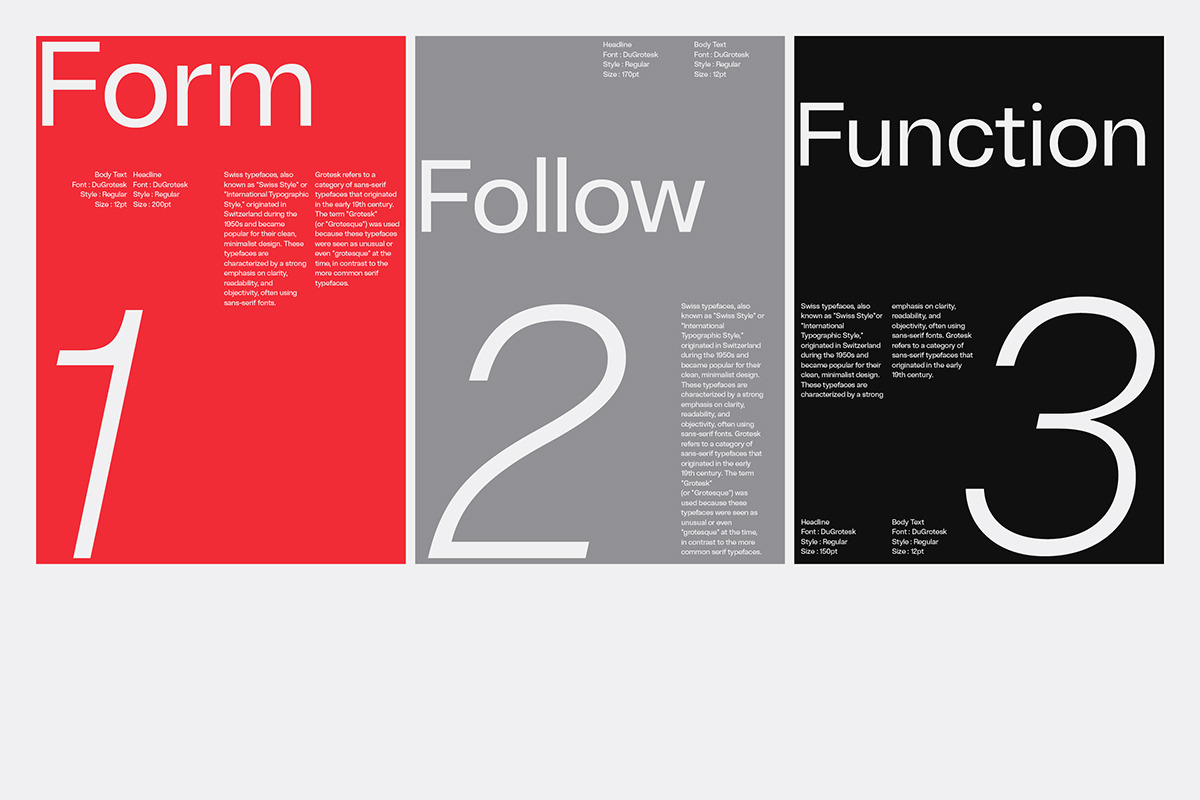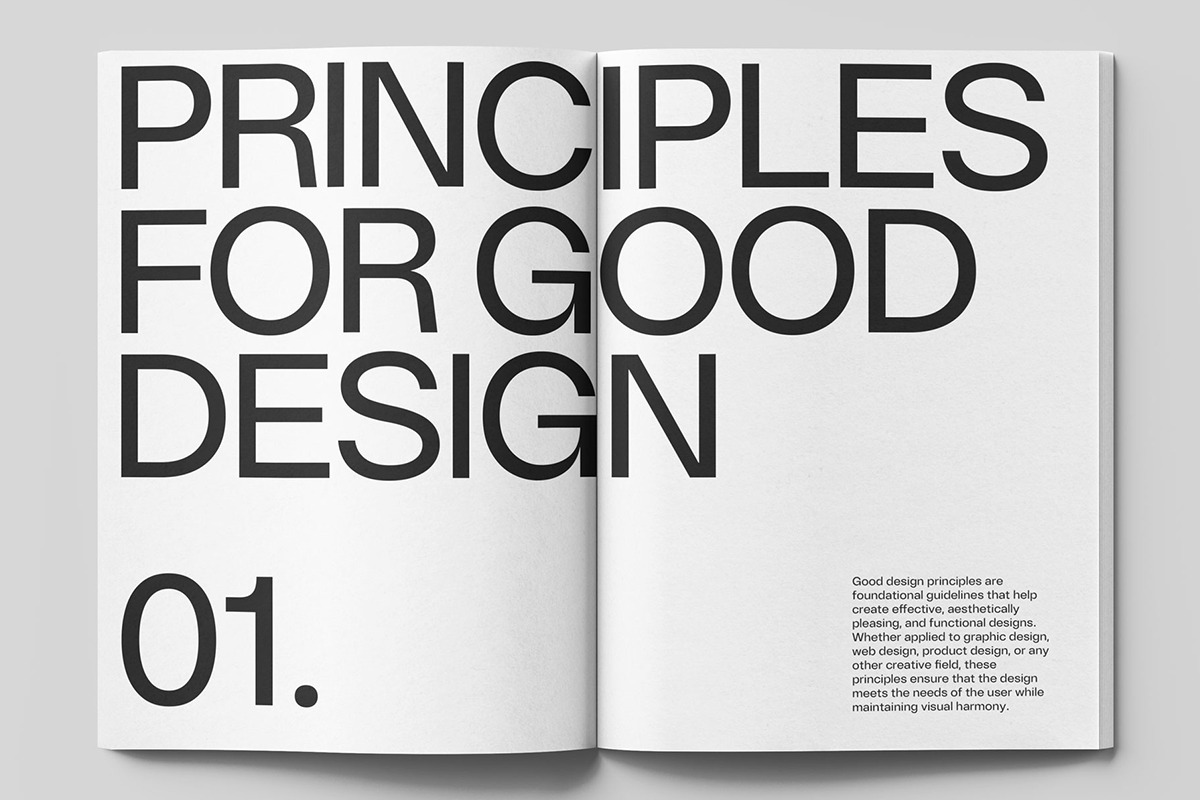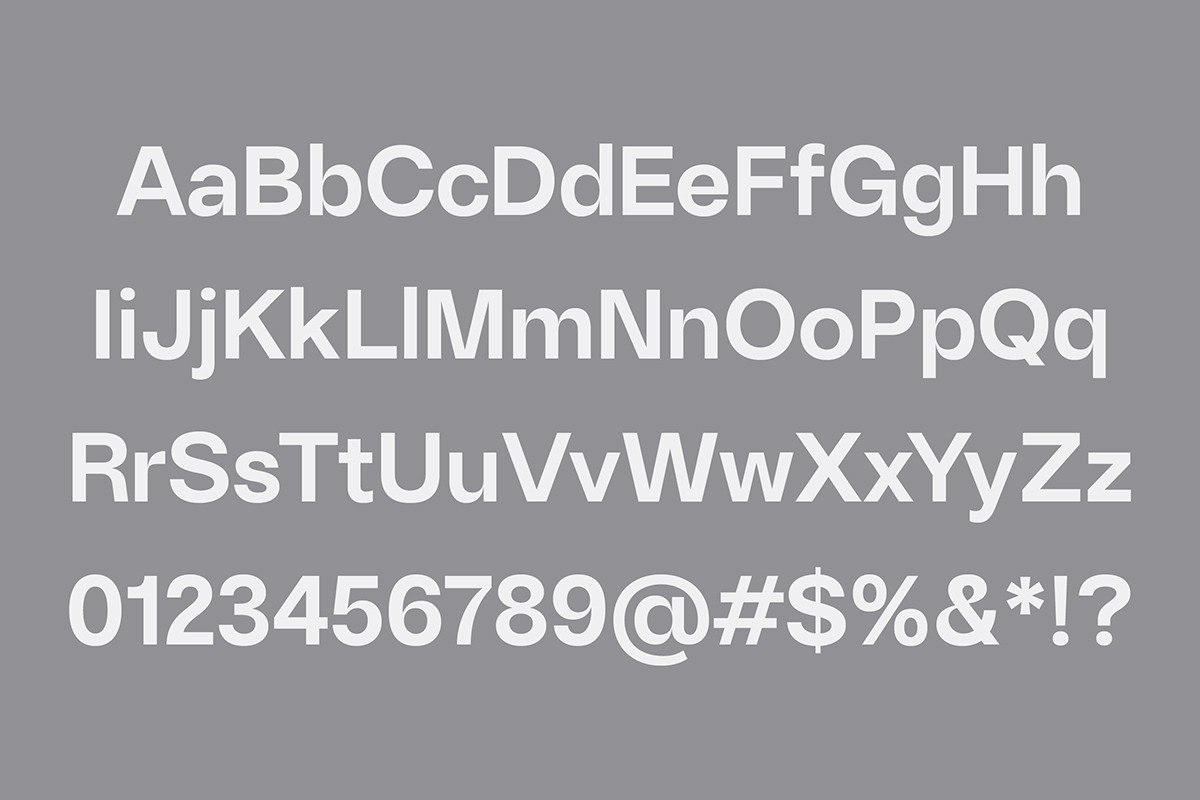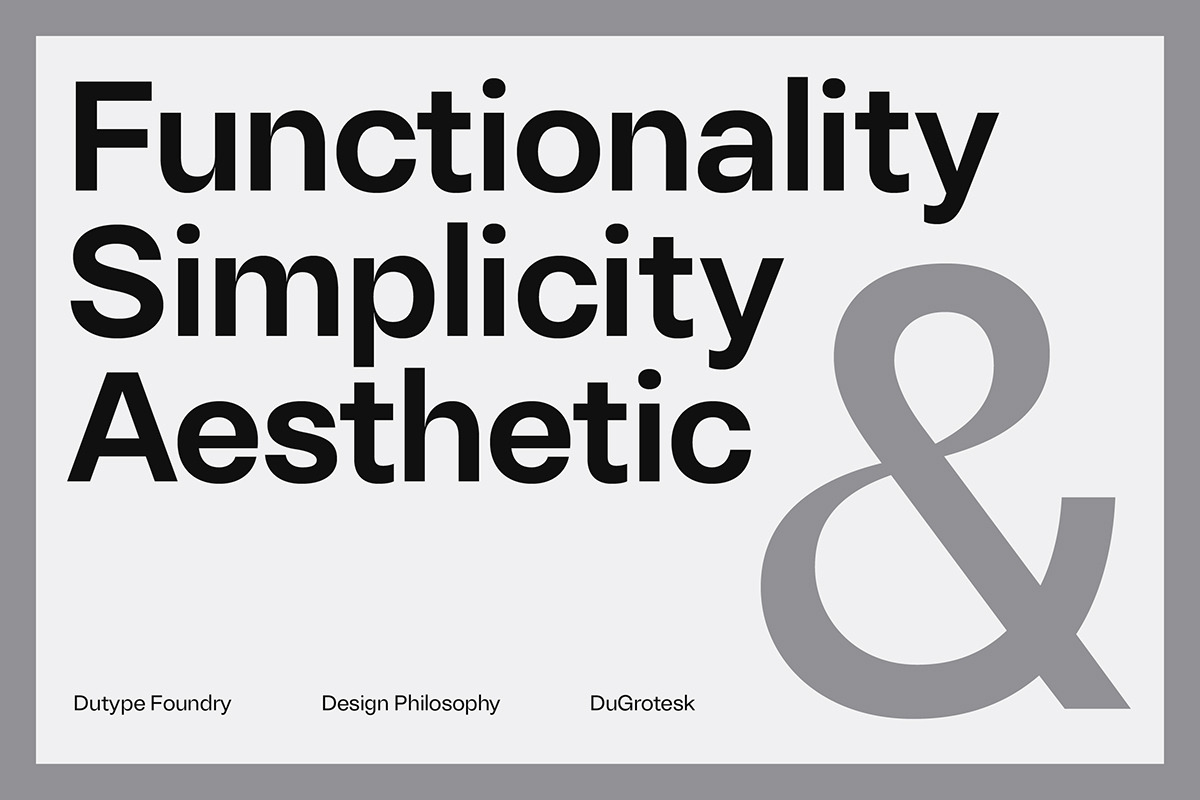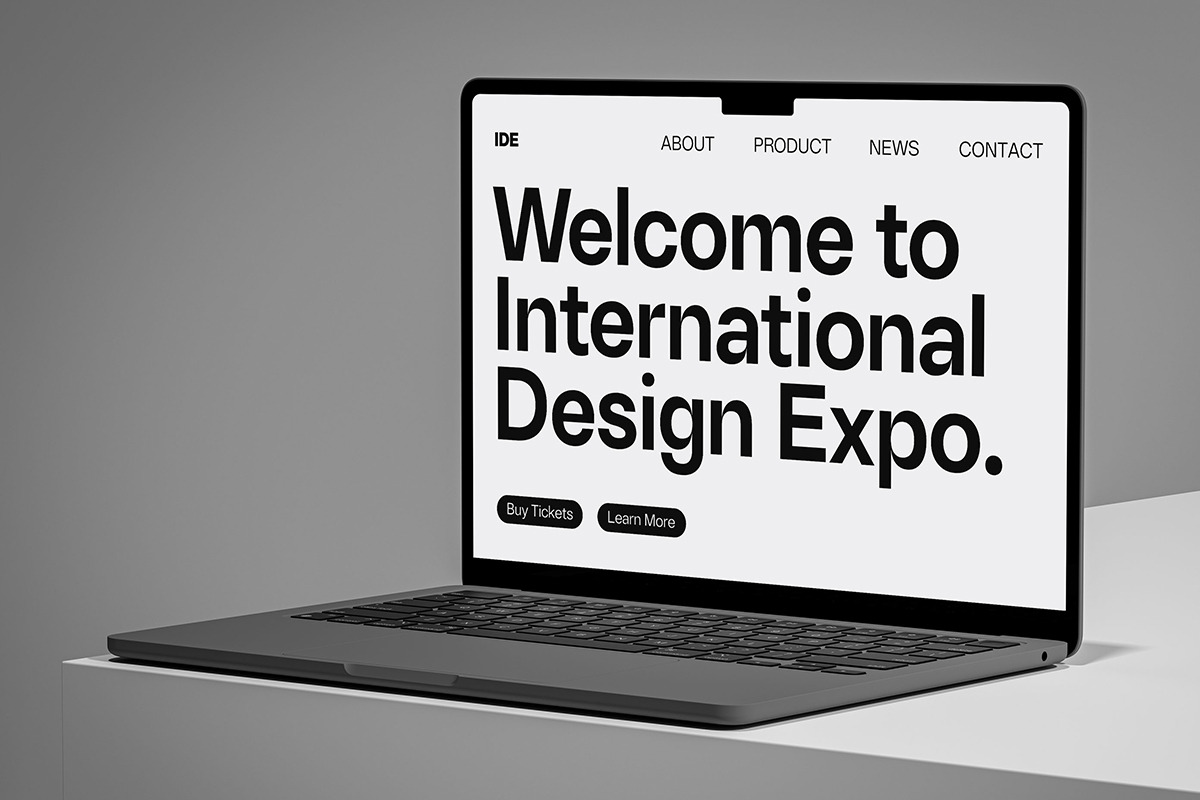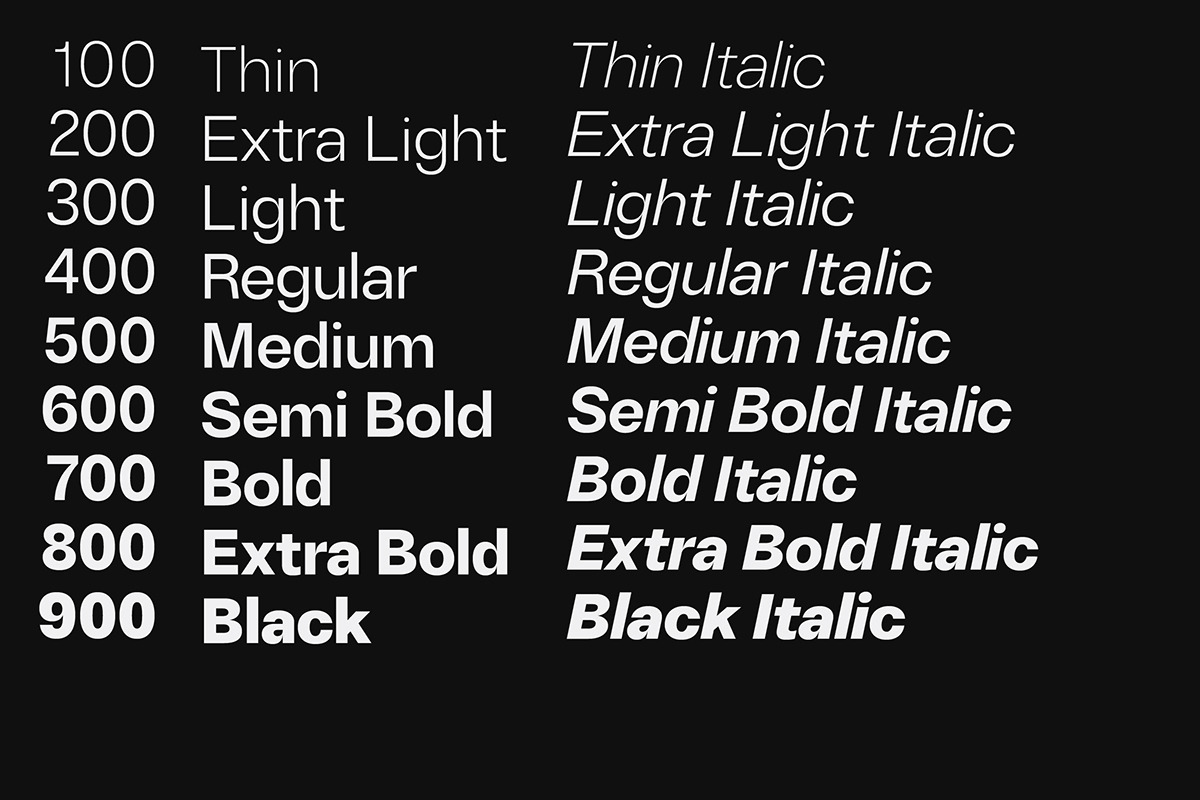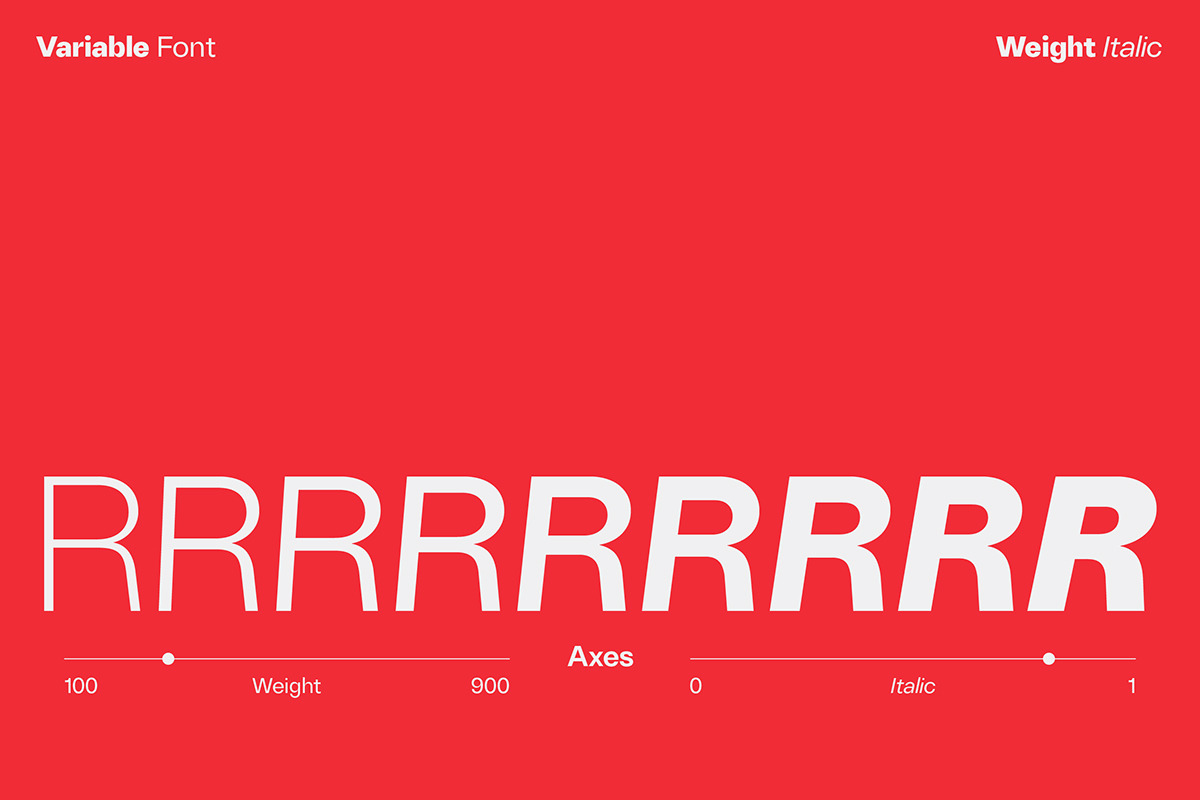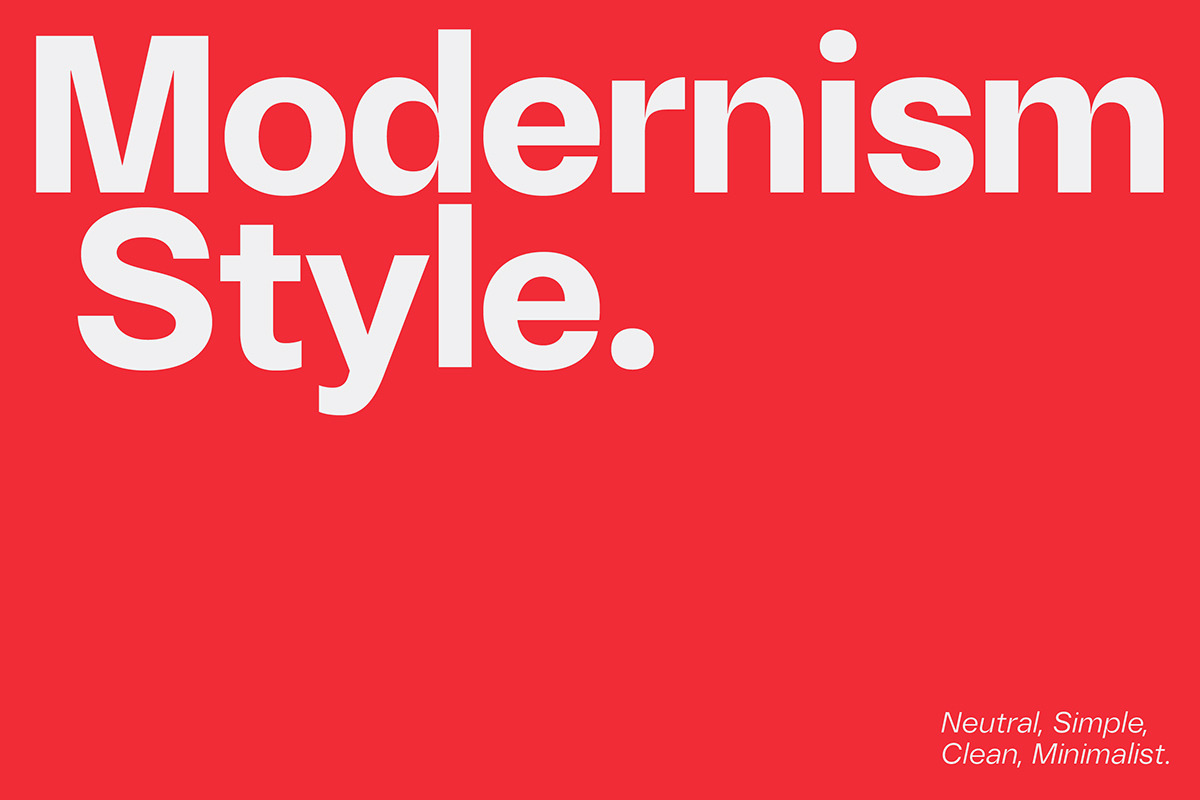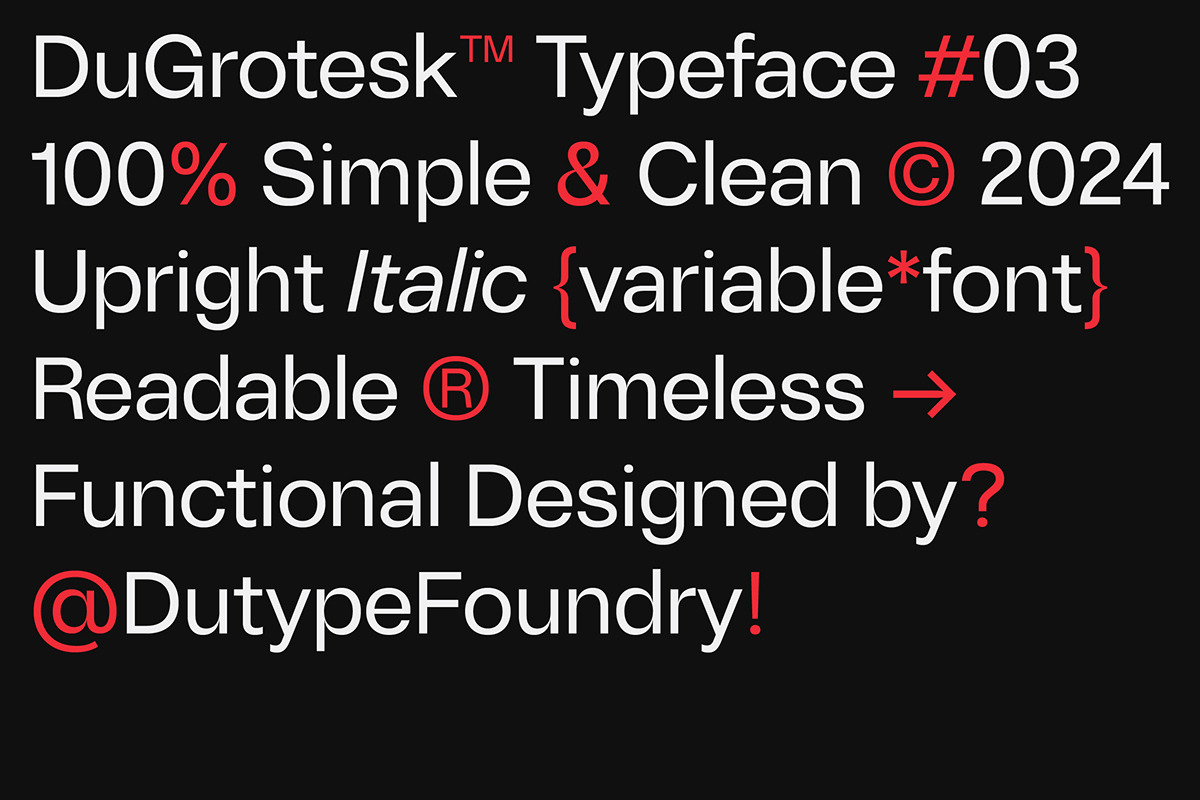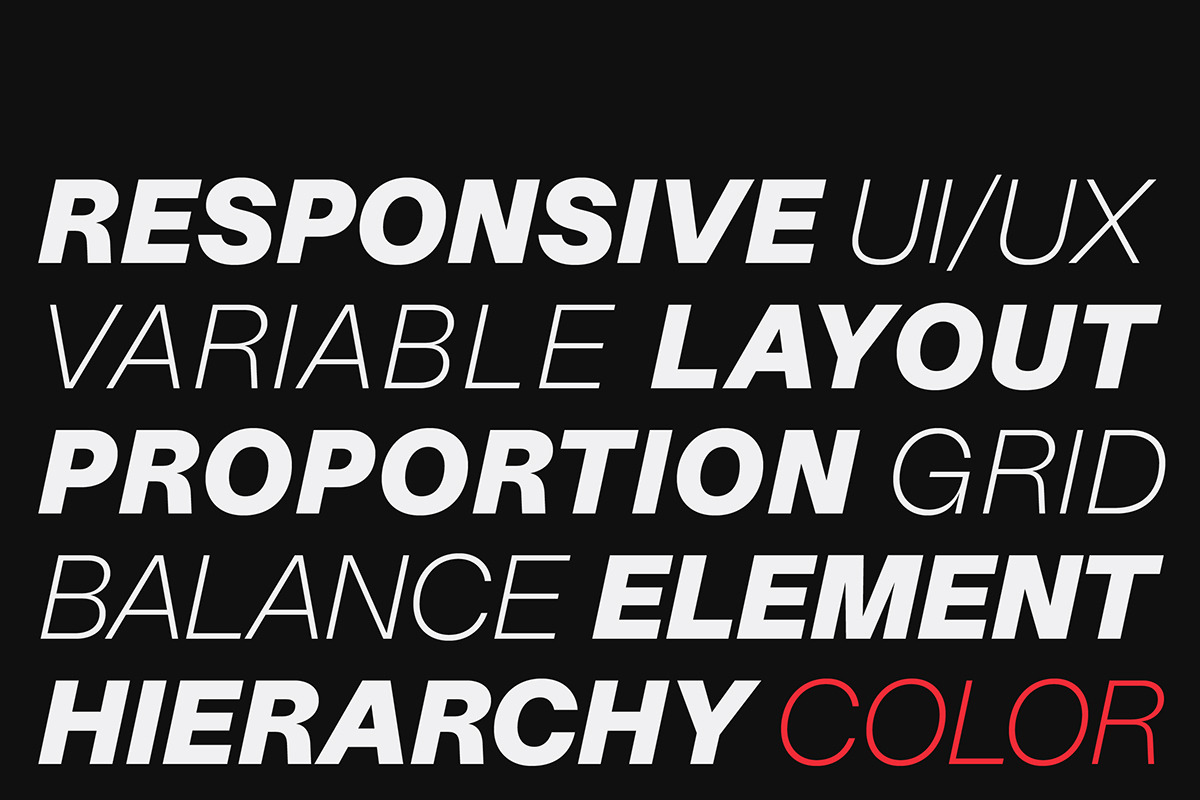
DuGrotesk
DuGrotesk is a modern sans serif typeface inspired by the classic Grotesk style. It's characterized by its clean lines, geometric forms, and exceptional readability. This versatility makes it suitable for a wide range of applications, from branding and digital interfaces to editorial design and websites. DuGrotesk aims to deliver both utility and aesthetic appeal, ensuring that your content is clear, legible, and visually compelling.